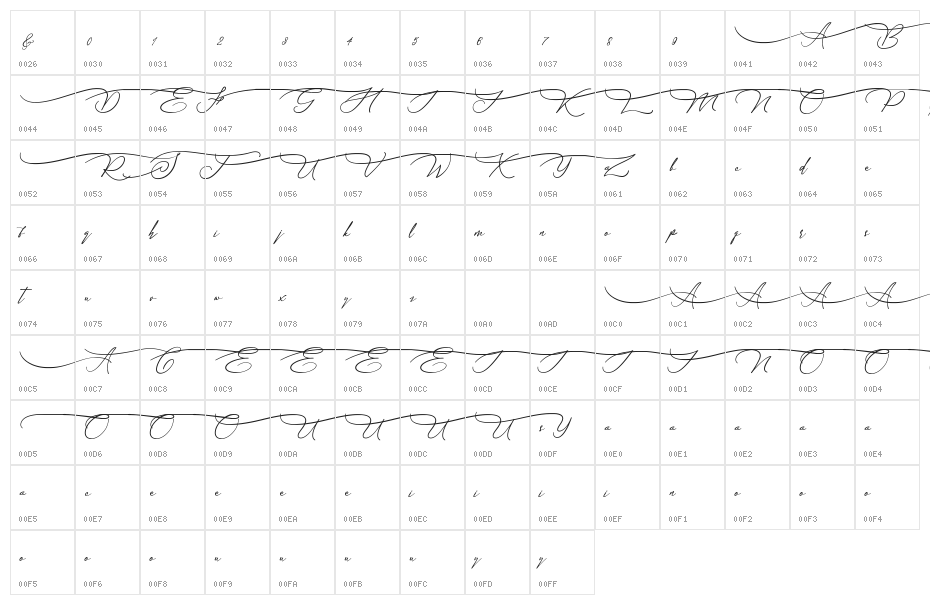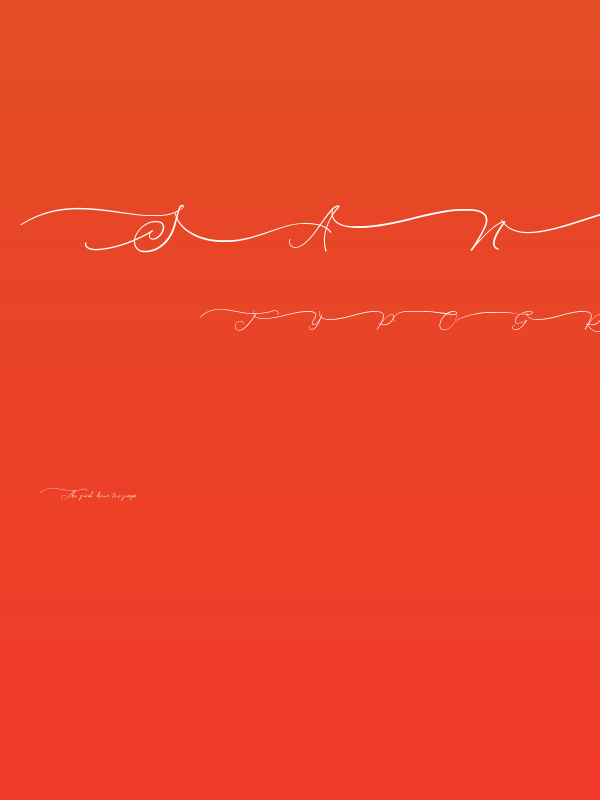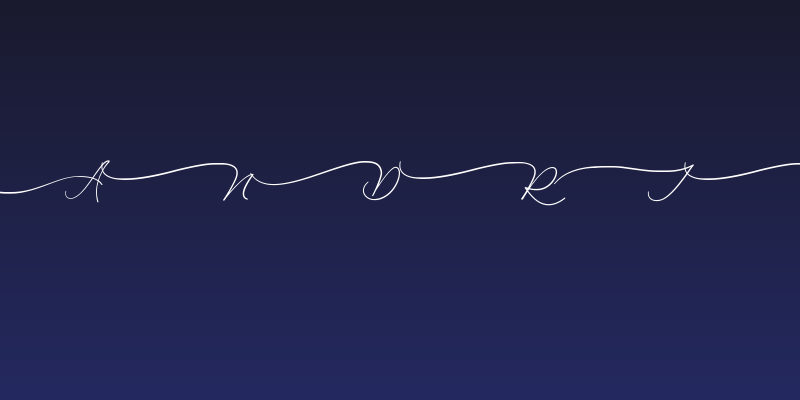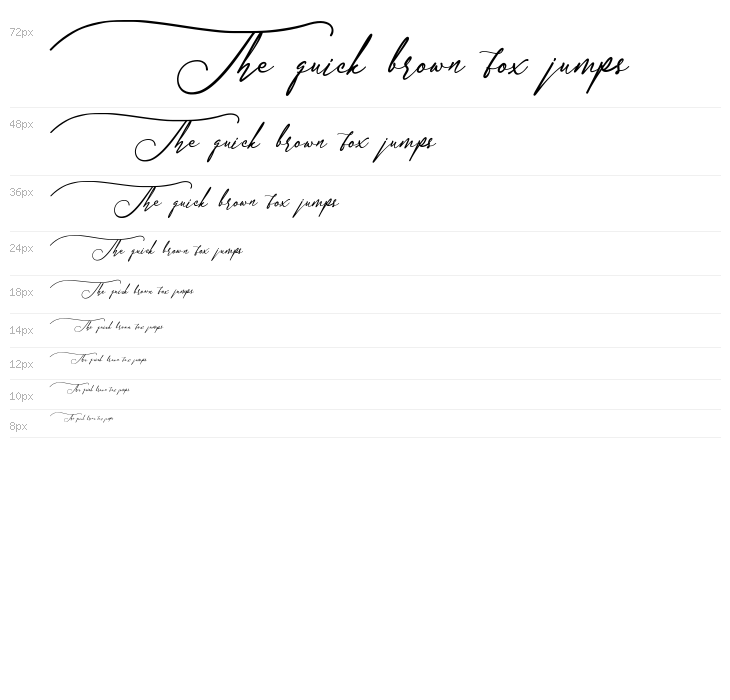
Sandrina Font
Sandrina Description
This elegant script font features a flowing, cursive style with delicate, thin lines that create a sense of sophistication and grace. The uppercase letters are intricately connected, forming a continuous line that enhances the fluidity of the design. The lowercase letters maintain a consistent style, with slightly more pronounced strokes that add a touch of boldness. The numerals are designed with a similar cursive flair, ensuring a cohesive look across all characters. The ampersand symbol is particularly ornate, showcasing the font's decorative nature. This font is perfect for projects that require a touch of elegance and refinement.
| Overall Style | Elegant, Decorative |
| Use Case | Logos, Invitations, Branding |
| Proposed Projects | Ideal for wedding invitations, elegant branding, high-end product packaging, and personal stationery. |